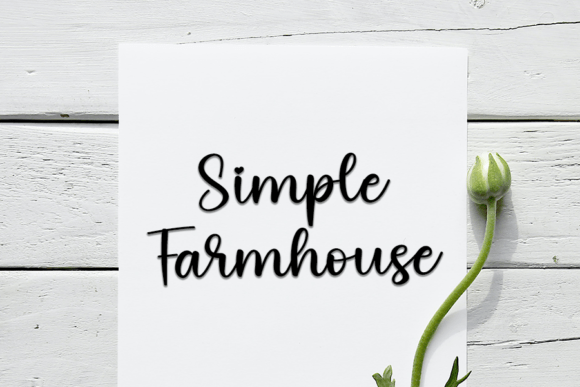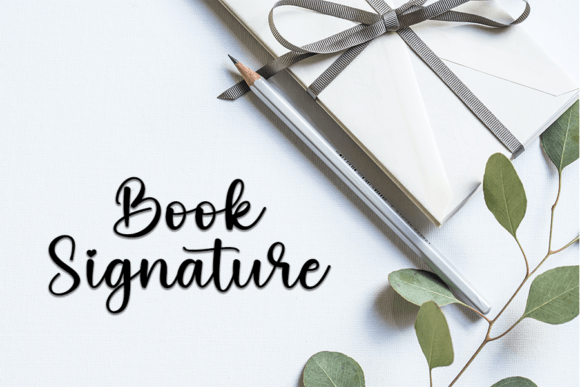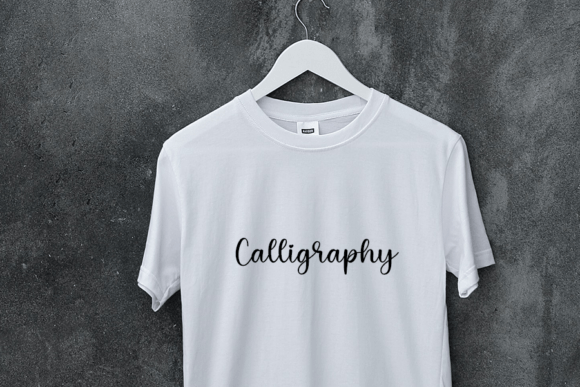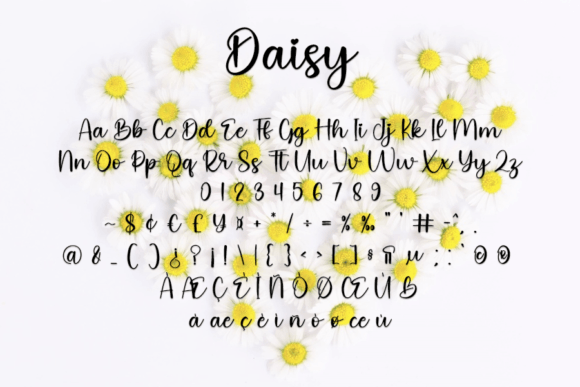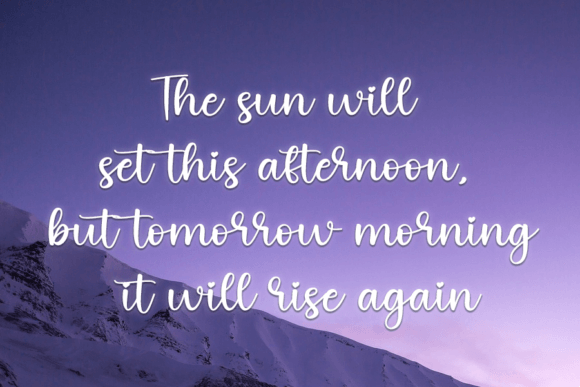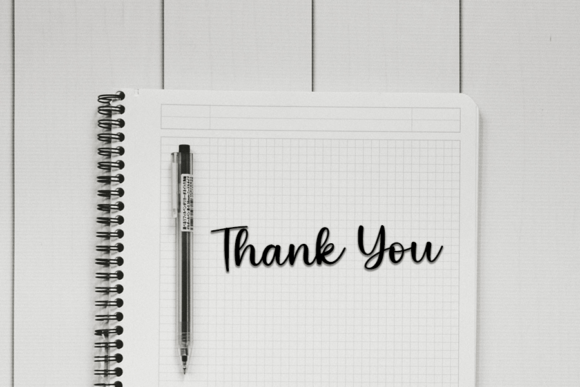
The Daisy Font: A Beautiful Script Font for Every Occasion
I’ll never forget the time I was working on a project for a client who wanted a custom greeting card design. I had spent hours browsing through font libraries, but nothing seemed quite right. That’s when I stumbled upon the Daisy font. Its unique and beautiful script style immediately caught my eye, and I knew I had found the perfect fit. In this article, I’ll share my experience with the Daisy font, its features, and how to make the most of it in various design platforms.
An Honest Review of the Daisy Font
The Daisy font has quickly become one of my go-to fonts for various design projects. Here’s what I love about it:
- ✨ Unique and beautiful script style that’s perfect for making a statement
- ✅ Highly versatile and suitable for various design projects, from crafts to digital designs
- ✅ Easy to read and understand, even in smaller font sizes
- ✨ Wide range of OpenType features, glyphs, and stylistic alternates to enhance your designs
While the Daisy font is amazing, it’s not without its quirks. Here are a few things to keep in mind:
- ⚠️ Some users may find the font a bit too ornate for certain projects
- 🤔 Limited availability of certain glyphs and special characters
The Story Behind the Daisy Font
The Daisy font was designed by a team of typographers who wanted to create a unique and beautiful script font that would be perfect for various design projects. Inspired by the beauty of nature and the elegance of traditional script fonts, the Daisy font was born. With its intricate details and flowing lines, the Daisy font is sure to add a touch of elegance and sophistication to any design.
| Author | PAYJHOshop |
| What is the Daisy font best used for? | The Daisy font is best used for designs that require a touch of elegance and sophistication, such as greeting cards, invitations, and digital designs. |
| Is the Daisy font suitable for body text? | While the Daisy font is beautiful, it’s not recommended for body text due to its ornate nature. It’s best used for headings, titles, and short paragraphs. |